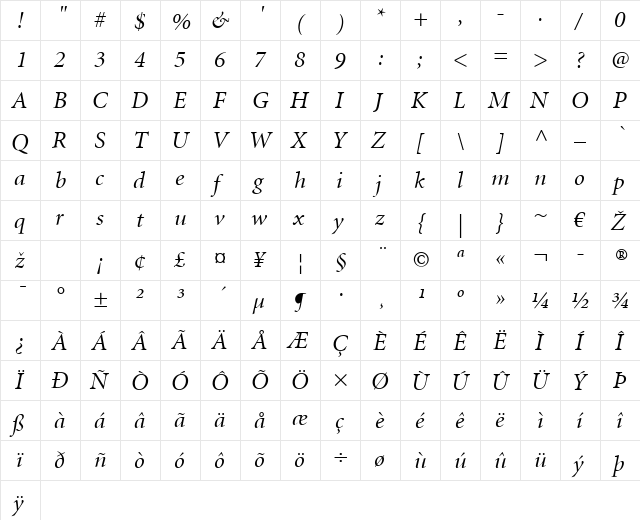
Minion LT Display Italic Font Preview
Design Context for Minion LT Display Typeface
Minion LT Display is built around its visual character rather than neutral utility — its distinctive forms are designed to make an impression at display sizes. Its italic angle brings a sense of urgency and motion to the letterforms. Its slender proportions lend an understated elegance to any composition.
Font Pairing: Pair with a clean neutral sans-serif for body copy to let Minion LT Display's character lead without overwhelming the composition.
Pro Tip: Use Minion LT Display exclusively at display sizes — it was designed to be seen, not read at length. Let a neutral companion handle body copy.